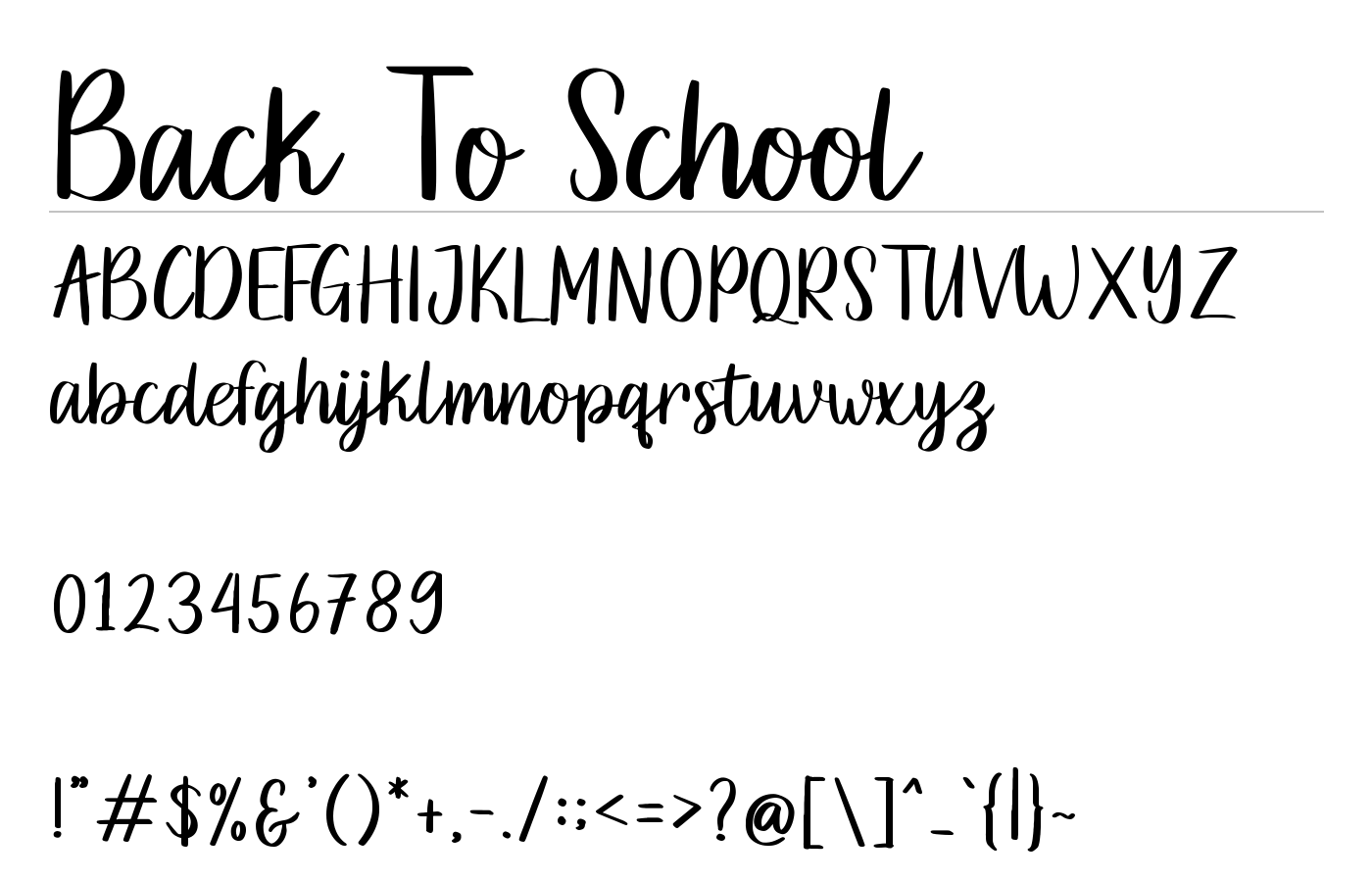
Back To School is a playful, handwritten script font with a casual and friendly feel. Its tall, slightly narrow letterforms and smooth strokes create an approachable look perfect for school-themed projects, children’s materials, or informal branding. This font works well for headlines, logos, and invitations where a warm, personal touch is desired.
Back To School Font
About Back To School Font